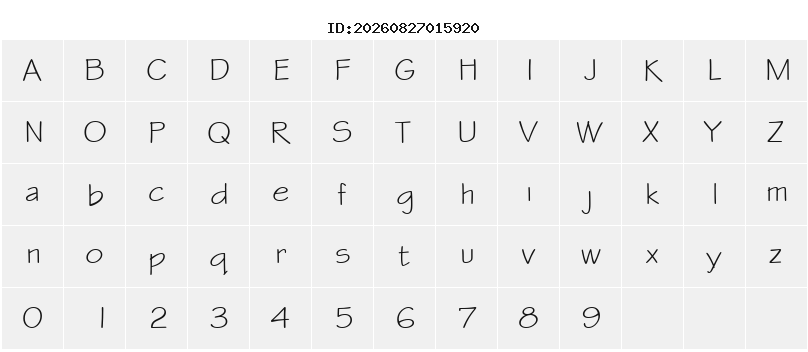
850-CAI978 Preview
• Font Name: 850-CAI978
• Font ID: 850-CAI978:Version 1.00
• Full Font Name: 850-CAI978
• Version: Version 1.00 August 29, 1994, initial release
• PostScript Name: 850-CAI978
• Character Count: 283
About 850-CAI978.ttf
850-CAI978.ttf is a modern, elegant sans-serif font designed for ultimate readability and visual harmony. Perfect for branding, headlines, web design, and print materials.